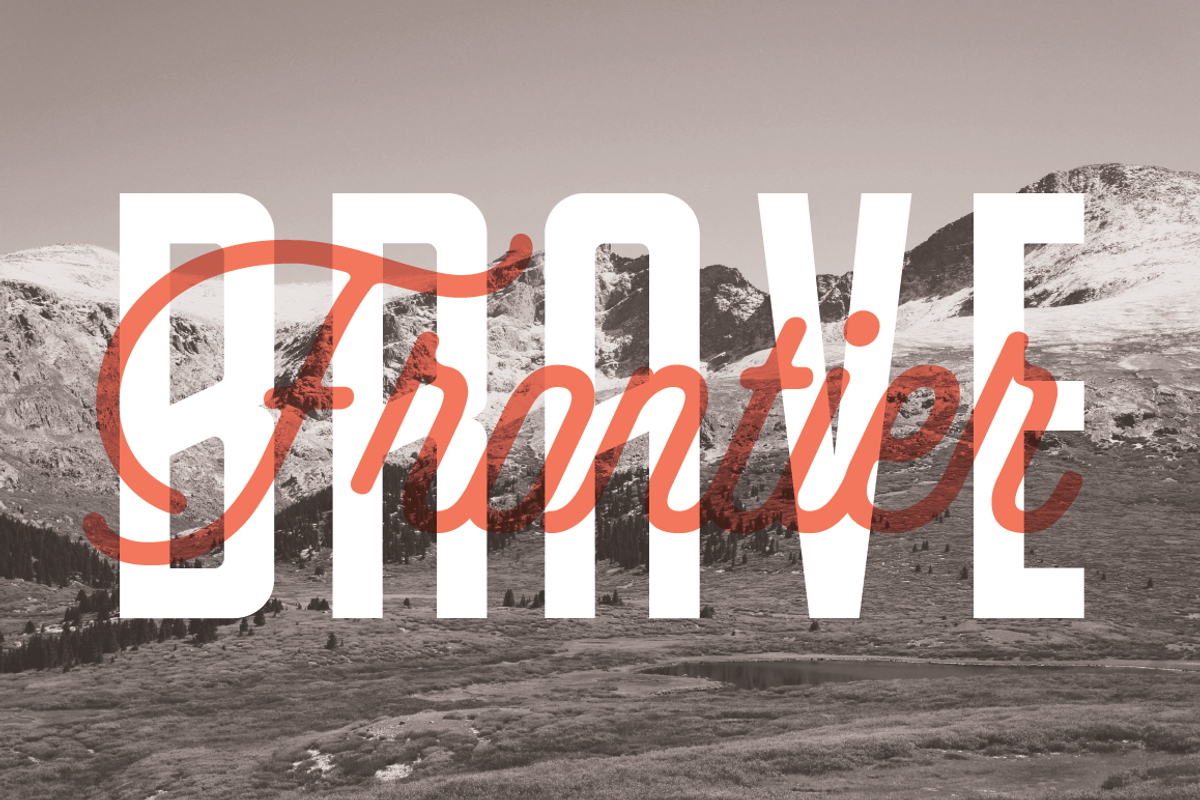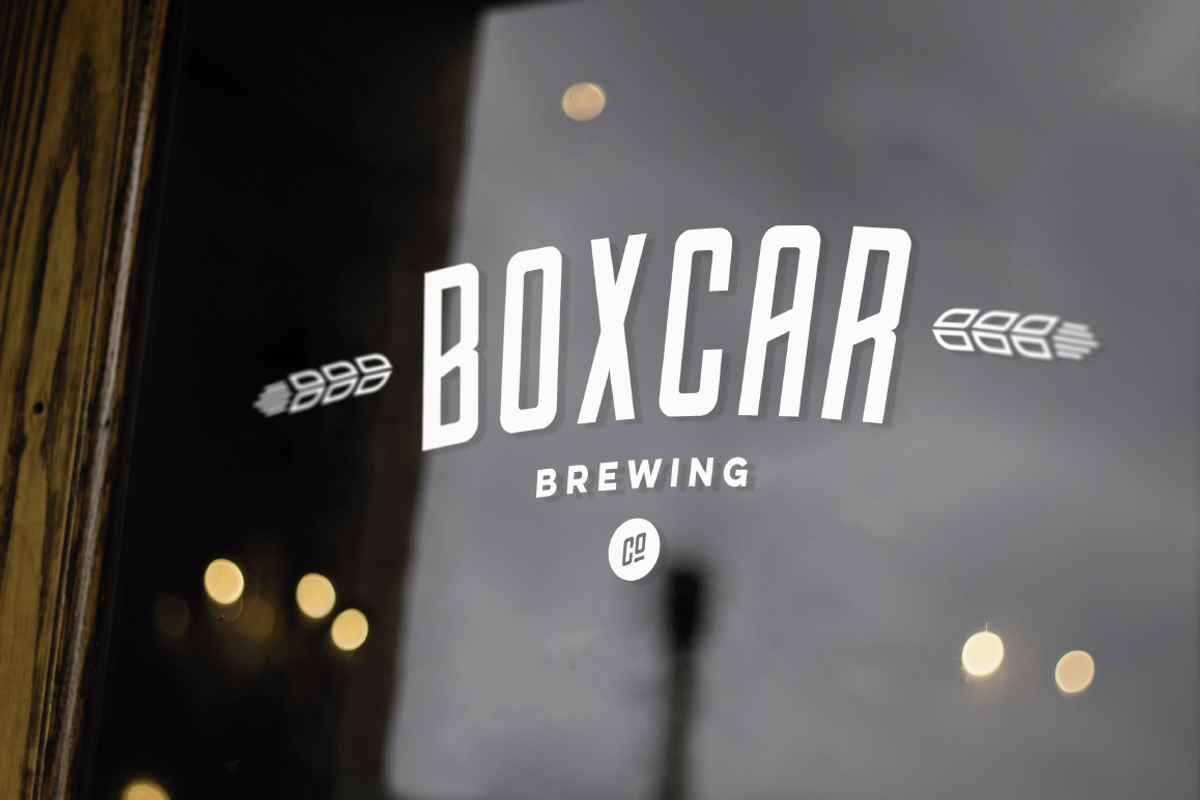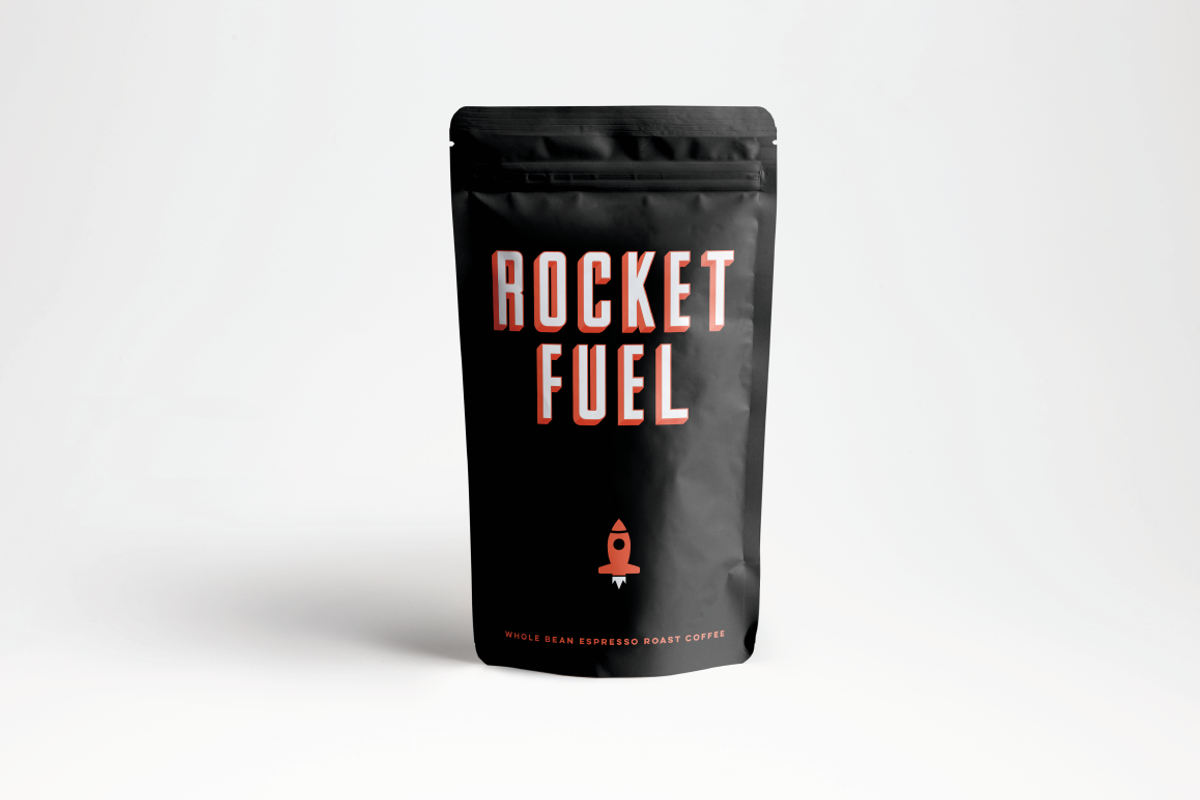
Parts & Labor - Layered Type System
Parts and Labor is a hardworking and dependable layered type system.
For as long as we can remember, we've been fascinated with the bold headlines and powerful messaging portrayed in the newspapers and propaganda posters of the mid 20th century. We wanted to create a variant on the style that was just as hardworking for use in headlines and signage, yet distinct enough for modern-retro branding work as well. Parts and Labor is homage to the era of the sign painter and we hope you enjoy using it as much as we do.
What you'll get: A rock solid, perfectly aligned, layered type system which features 4 unique weights, each with matching stylistic alternate characters:
- Display This versatile weight can be used solo, or in combination, both to amazing effect.
- 3D Fully extruded 3D layer, also works great on it's own.
- Shade For added lighting detail.
- Shadow Finalize your effect with a drop shadow.